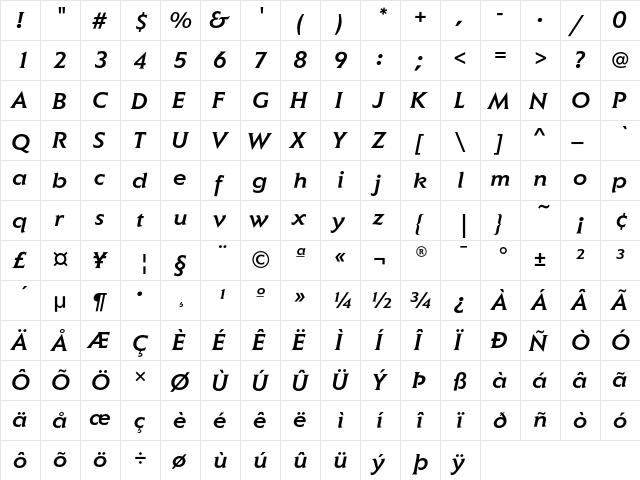
ElanEF MediumItalic
Design Context for ElanEF Typeface
ElanEF takes a measured approach to typography — its balanced proportions and neutral character make it a reliable workhorse for both digital and print work. The slanted form adds forward momentum and visual energy.
Pro Tip: Use ElanEF for emphasis, pull quotes, and subheadings where its slanted energy can add rhythm to the layout.